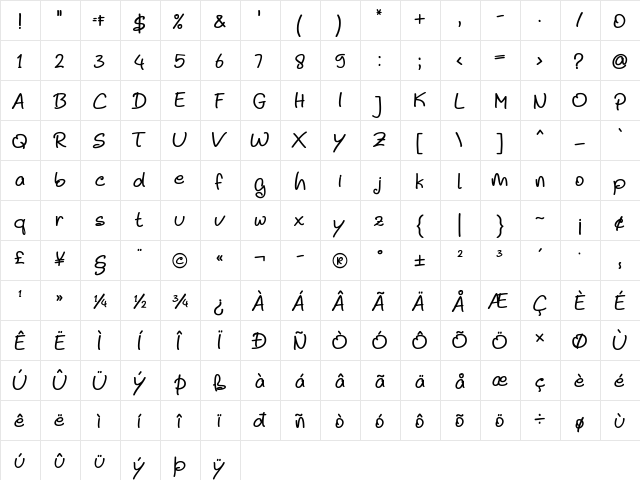
Noela Sherly Regular
| Foundry | 7NTypes |
| Designer | Adyfo; Situjuh Nazara |
Design Context for Noela Sherly Typeface
Noela Sherly is a composed and adaptable typeface that performs quietly and consistently across a wide range of design contexts.
Pro Tip: Use Noela Sherly in both headline and body roles to test its range before committing to a single application.